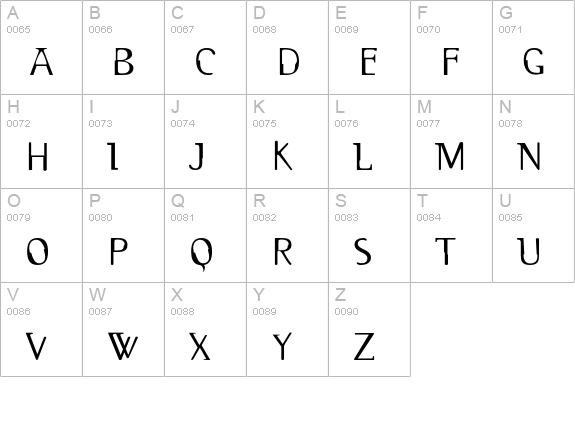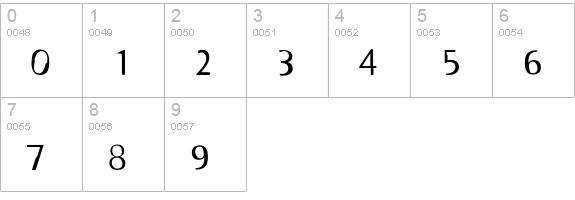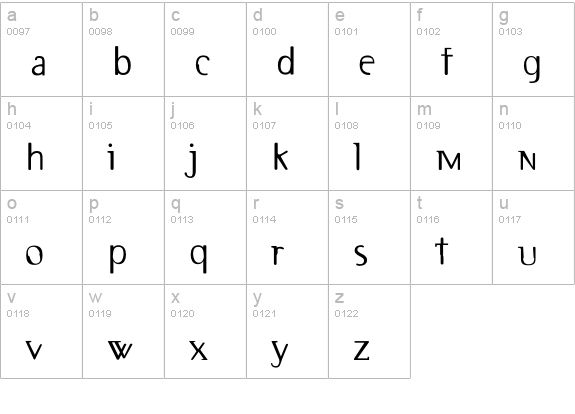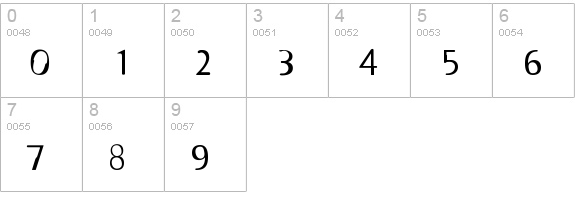
2RebelsDeux-Regular Font Details
2RebelsDeux-Regular is the standard, neutral variant in the 2RebelsDeux typeface family \xE2\x80\x94 well suited to general body text, paragraphs, and standard typographic work.
2RebelsDeux-Regular is a stylish and modern font that exudes rebellious energy and creativity. With its bold lines and unique letterforms, this font is perfect for making a statement and standing out from the crowd. Whether you're designing posters, logos, or social media graphics, 2RebelsDeux-Regular will add a touch of edginess to your projects. The best part? 2RebelsDeux-Regular is completely free to download at FontsMarket.com. So unleash your inner rebel and start creating with this dynamic and eye-catching font today!